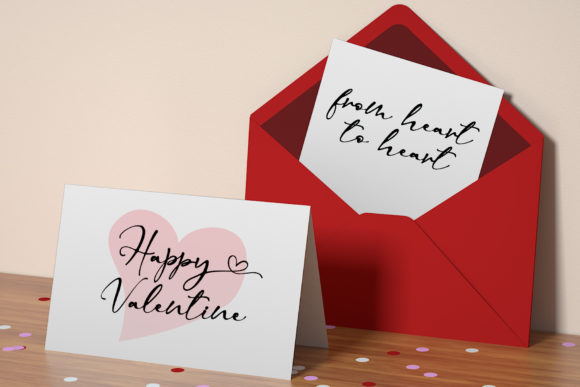
About My Valentine Font
My Valentine is a unique and classy handwritten font. It will add a romantic touch to your designs. Use it for Valentine’s cards, greeting cards, stationery, branding and more!